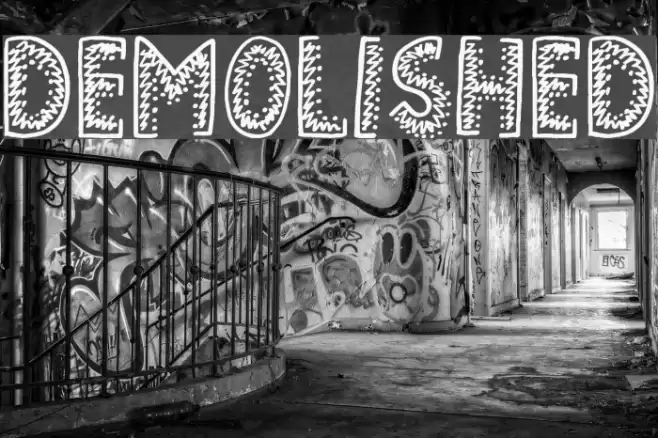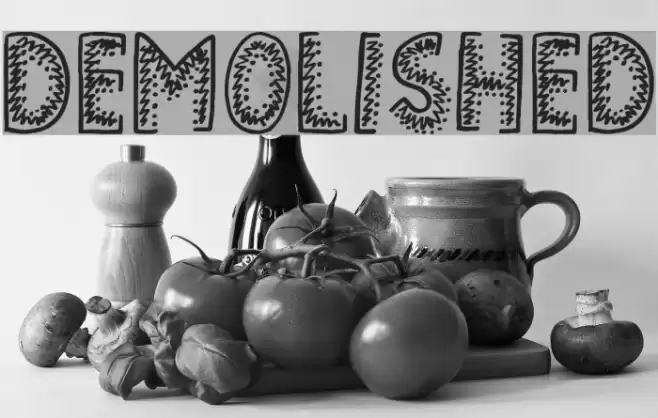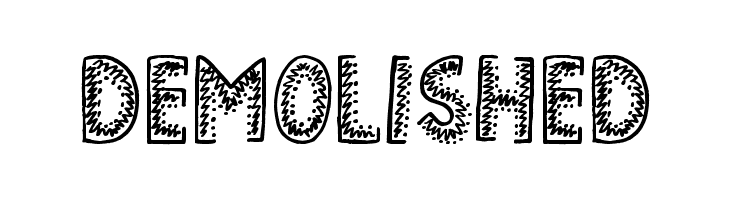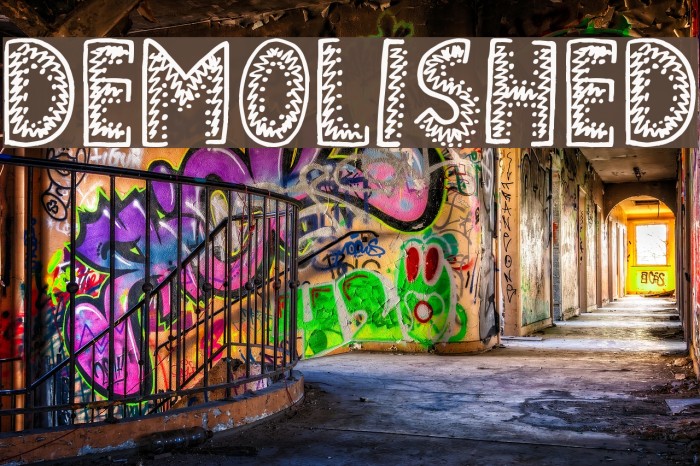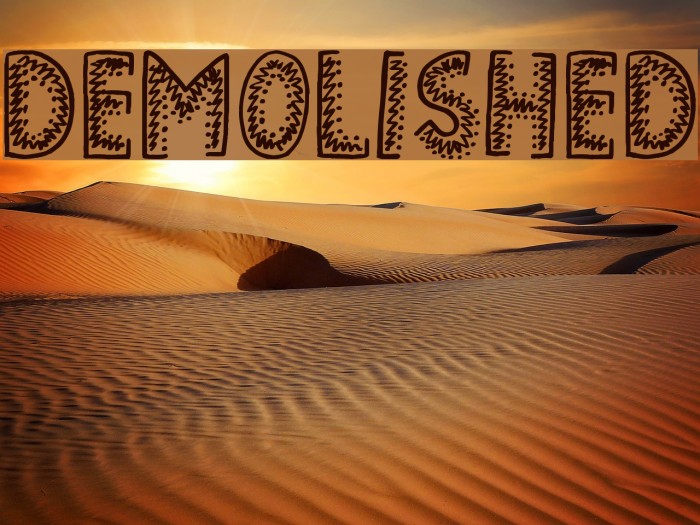
Demolished Font
Demolished Description
This font features a bold and playful design with a hand-drawn aesthetic. Each character is filled with dynamic, irregular patterns that create a sense of movement and energy. The letters are outlined with a thick black stroke, enhancing their visibility and impact. The style is reminiscent of comic book art, with a whimsical and informal vibe. The uppercase and lowercase letters maintain a consistent style, making it suitable for creative and eye-catching designs. The font's unique texture and lively appearance make it stand out, perfect for projects that require a fun and engaging typeface.
A bold, playful font with a hand-drawn, comic book style from Uncategorized fonts.
- Proposed Projects: Ideal for children's books, comic strips, posters, and playful branding.
- Overall Style: Playful, Comic
- Use Case: Headlines, Posters, Branding